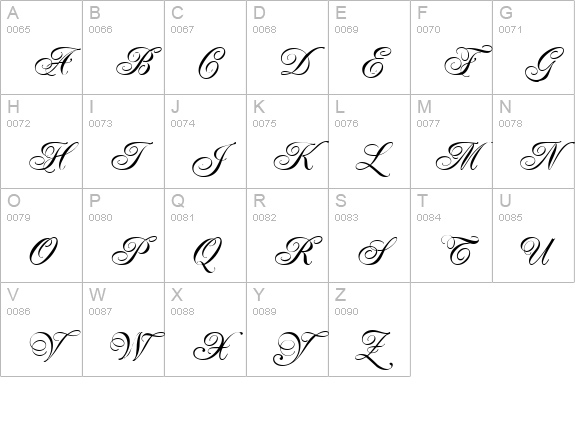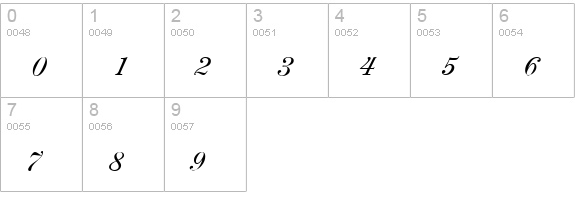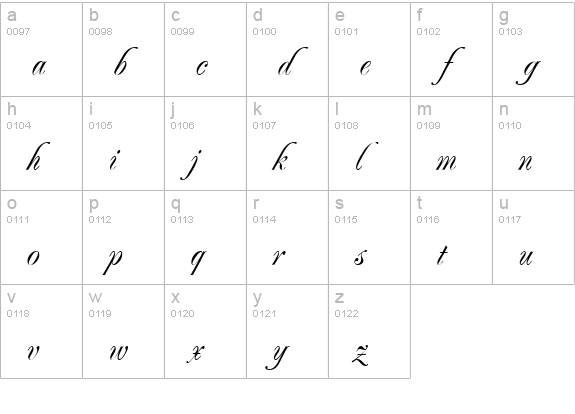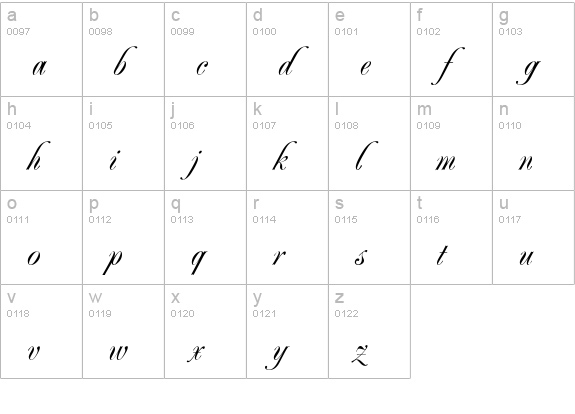
RenaissanceRegular Font Details
RenaissanceRegular font is a remarkable masterpiece that embodies the elegance and grace of the Renaissance era. With its intricate details and timeless design, this font captures the essence of classical typography while adding a touch of modern sophistication. This font is a versatile choice for various design projects, whether it be creating stunning logos, elegant invitations, or eye-catching headlines. Its balanced letterforms and harmonious curves make it a perfect choice for both print and digital media. What makes RenaissanceRegular font even more appealing is the fact that it is available for free. Yes, you read that right! This exquisite font can be freely downloaded at FontsMarket.com, a reputable source for high-quality fonts. We believe that creativity should be accessible to all, and that is why we are offering this font for free, allowing designers, artists, and enthusiasts to bring their visions to life without any barriers. Whether you are a seasoned designer or just starting your creative journey, RenaissanceRegular font will be a valuable addition to your font library. Its timeless beauty and versatility will inspire you to create stunning and memorable designs. Download RenaissanceRegular font for free at FontsMarket.com today and experience the magnificence of the Renaissance era in your own creations. Let your imagination soar and bring your designs to life with this exquisite font.